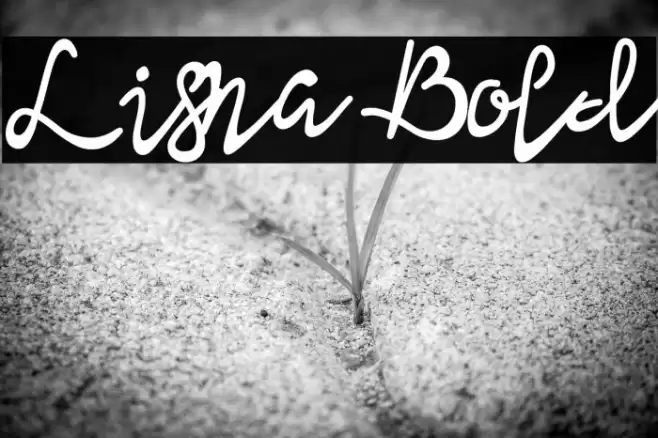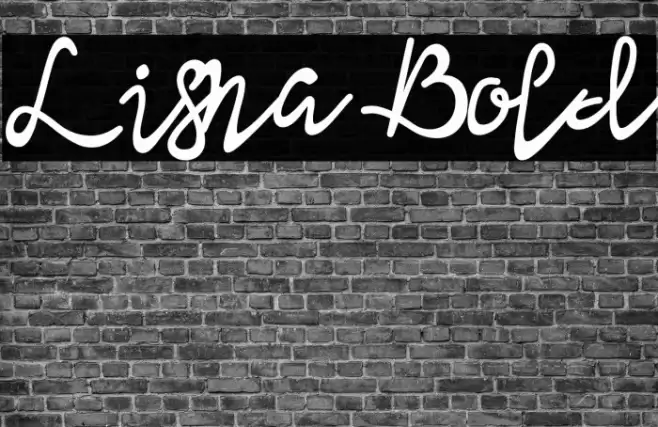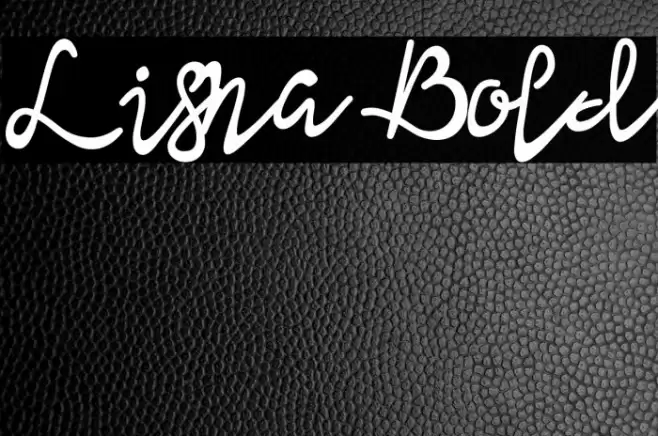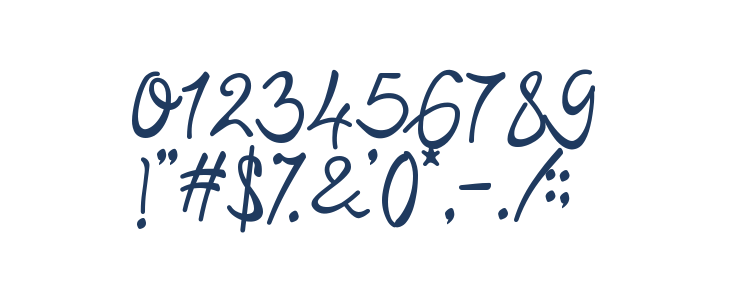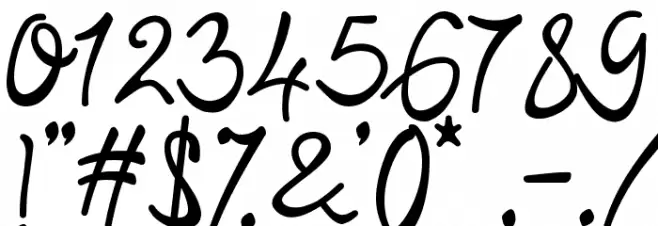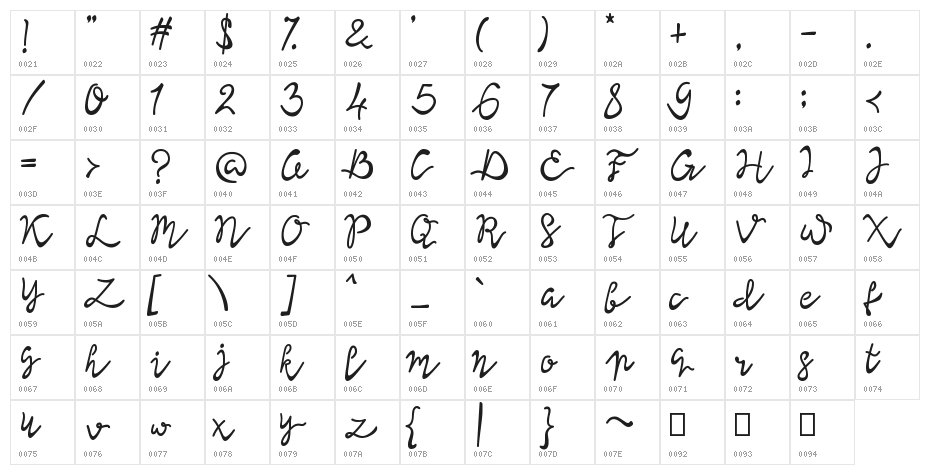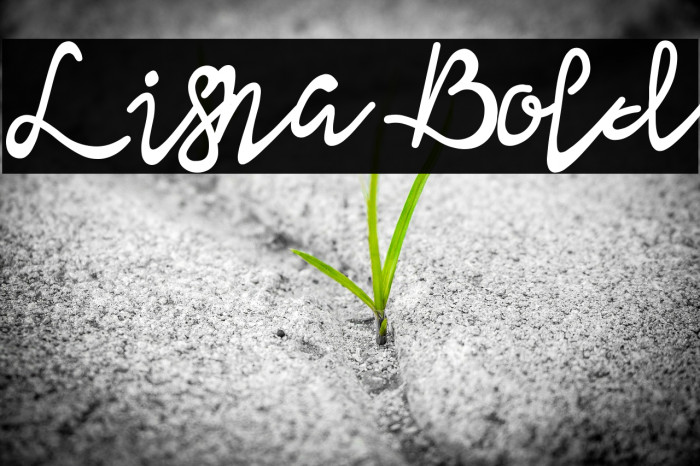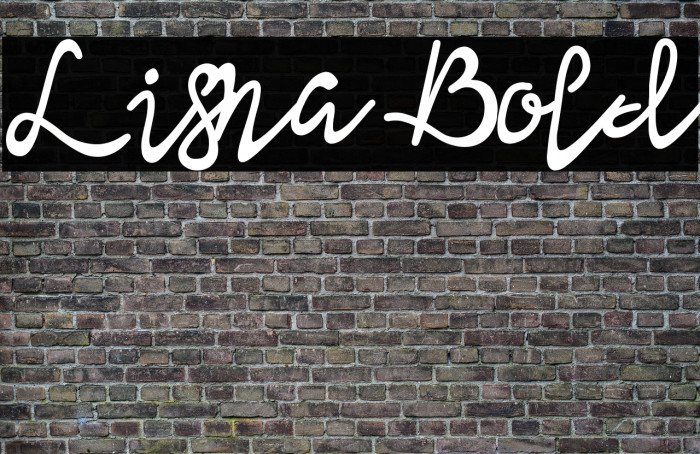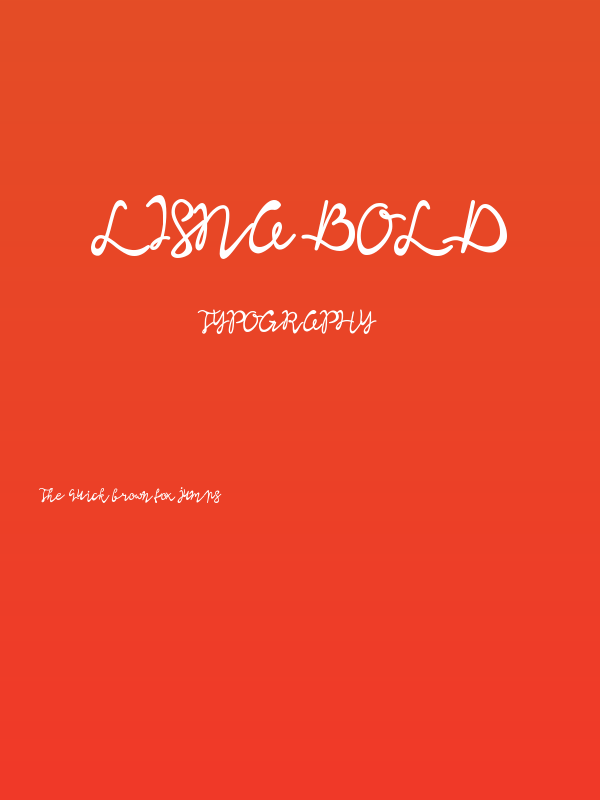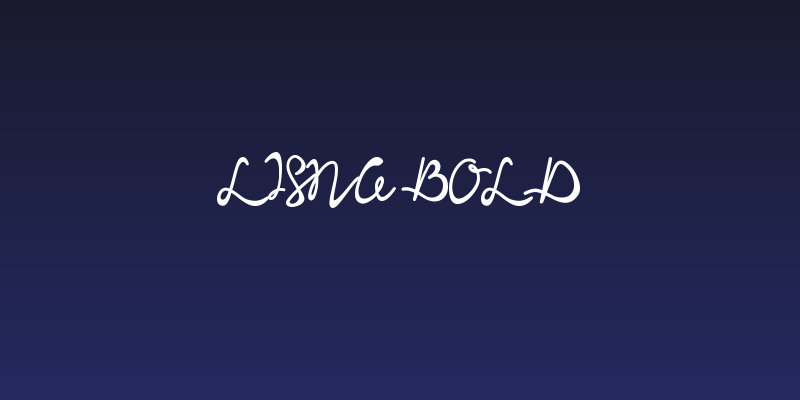
Lisna Bold Font
Lisna Bold Description
This font features a dynamic and flowing script style, characterized by its elegant and fluid letterforms. The strokes are smooth and connected, giving it a handwritten appearance that is both sophisticated and approachable. The uppercase letters maintain a consistent height, while the lowercase letters exhibit a charming variability in their ascenders and descenders. The numerals are bold and clear, ensuring readability. Special characters are seamlessly integrated, maintaining the overall aesthetic. This font is ideal for projects that require a personal touch, such as invitations, greeting cards, or branding materials.
A dynamic and flowing script font with elegant, connected letterforms from Uncategorized fonts.